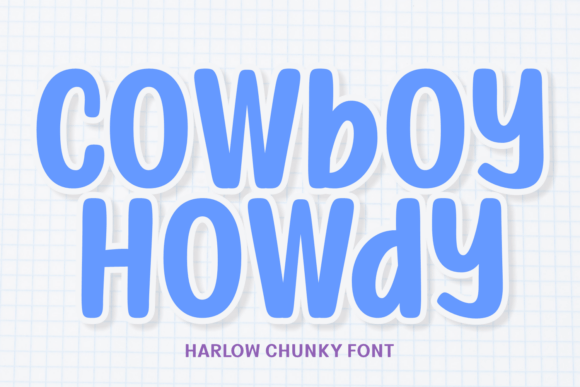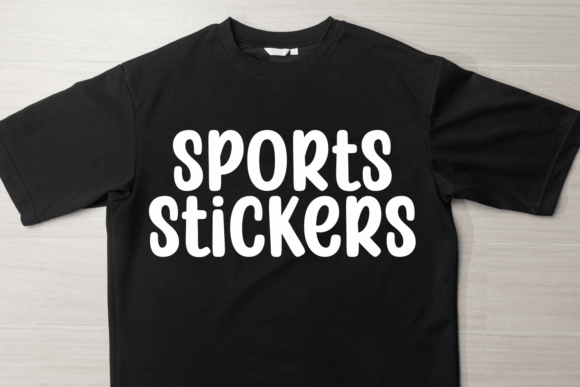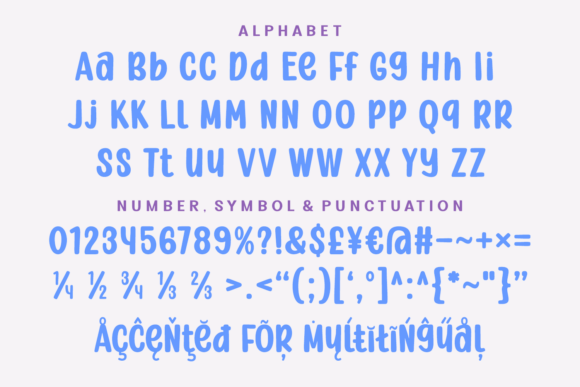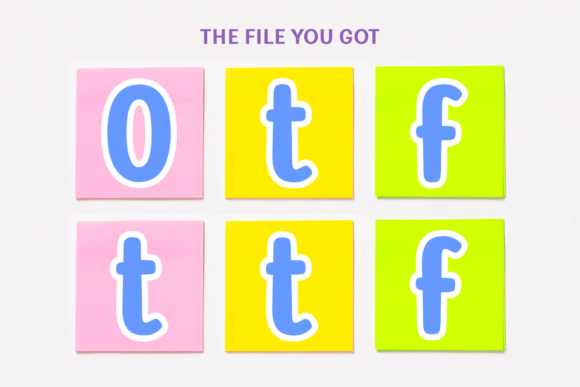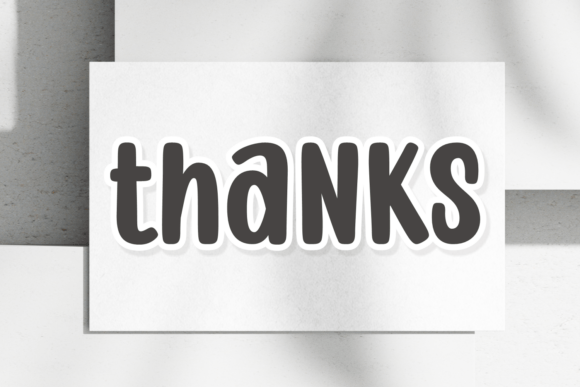
Introducing Harlow Chunky Fonts: The Playful Display Font for Joyful Designs
Are you looking for a font that can add a pop of joy and bubbly energy to your designs? Look no further than Harlow Chunky Fonts! This playful display font is perfect for bringing a childlike charm and candy shop vibe to any medium, making it ideal for a variety of design projects.
The Perfect Font for Children’s Products and Party Themes
Harlow Chunky Fonts are a perfect fit for enhancing children’s product packaging, birthday party themes, or casual gaming interfaces. The font’s thick, white border that imitates a sticker-like offset gives it a youthful touch that’s sure to appeal to kids and adults alike. The bright tones and soft rounded edges of the font breathe life into digital planner stickers and YouTube thumbnails, making it a great choice for crafters and designers who create content for kids.
Clear Legibility and Maximalist Appeal
One of the standout features of Harlow Chunky Fonts is its clear legibility, even on hectic backgrounds. Despite its bold, maximalist trend, the font is easy to read, making it perfect for designs that require a strong visual impact. The font’s geometric shapes, bold lines, and bouncy enthusiasm make it a contagious and engaging choice for designers who want to create fun and playful designs.
Designed for Both Print and Web
Harlow Chunky Fonts are designed for both print and web, making it a versatile choice for designers who work on a variety of projects. The font carries great visual weight, catering to a maximalist appeal without compromising on its candy-store charm. This makes it perfect for summer camp flyers, toy line branding, and other designs that require a bold and playful look.
Key Features of Harlow Chunky Fonts
• Playful display font with childlike charm and candy shop vibe
• Thick, white border that imitates a sticker-like offset for a youthful touch
• Bright tones and soft rounded edges for a fun and playful look
• Clear legibility, even on hectic backgrounds
• Geometric shapes, bold lines, and bouncy enthusiasm for a contagious and engaging design
• Designed for both print and web
• Ideal for children’s products, party themes, casual gaming interfaces, summer camp flyers, toy line branding, and more
How to Use Harlow Chunky Fonts in Your Designs
Harlow Chunky Fonts are easy to use and can add a pop of joy and energy to a variety of design projects. Here are a few ideas for using this font:
• Use Harlow Chunky Fonts for children’s product packaging, such as toy boxes, candy wrappers, or kids’ clothing labels.
• Create fun and playful birthday party themes, including invitations, banners, and decorations.
• Add a bold and playful touch to casual gaming interfaces, such as mobile games or online platforms.
• Use Harlow Chunky Fonts for summer camp flyers, toy line branding, or other designs that require a fun and youthful look.
Harlow Chunky Fonts are a playful display font that’s perfect for designers and crafters who want to add a pop of joy and bubbly energy to their designs. With its childlike charm, candy shop vibe, and clear legibility, this font is ideal for a variety of design projects, from children’s products and party themes to casual gaming interfaces and more. Whether you’re designing for print or web, Harlow Chunky Fonts are a great choice for adding a fun and playful touch to your designs.